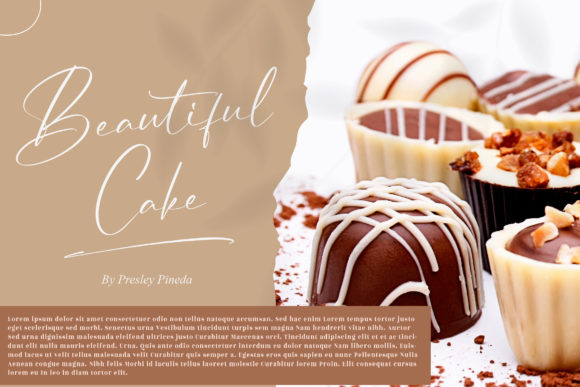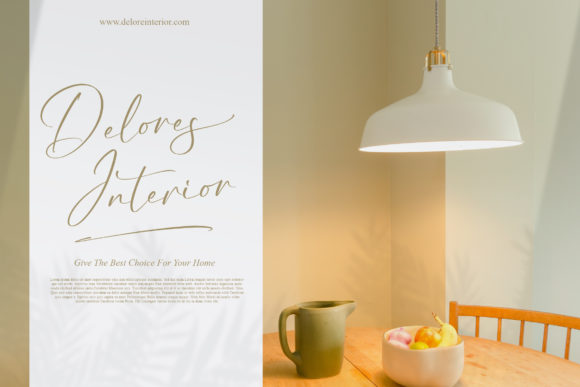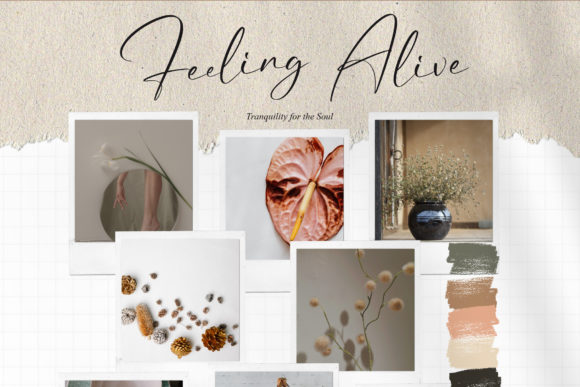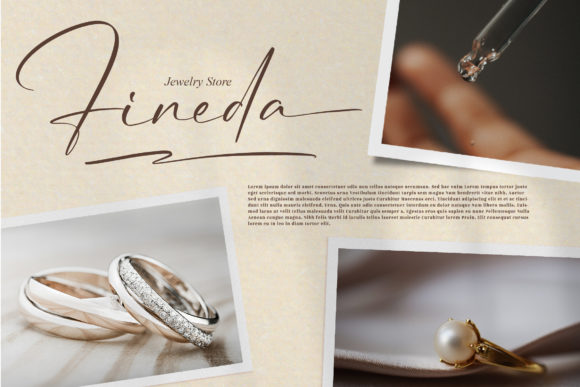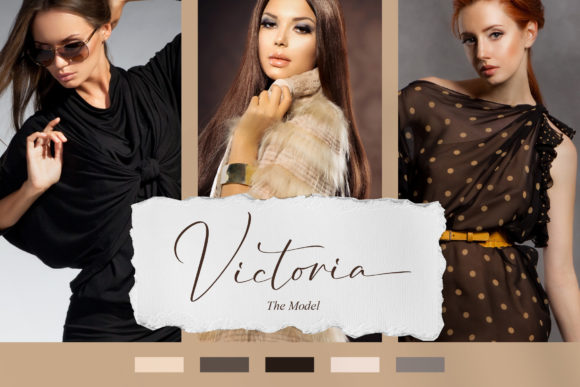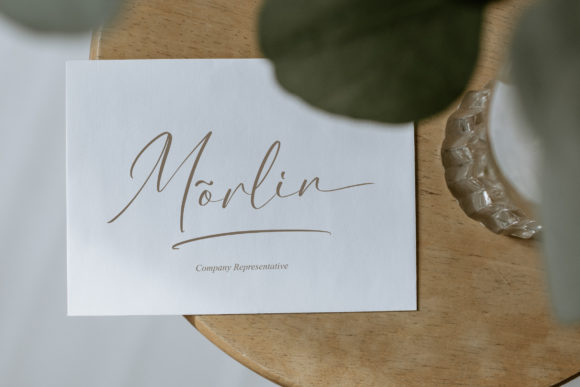
Introduction to Futuristic Bright Font
As a designer, there’s nothing quite like the thrill of starting a new project and bringing your vision to life. You stare at a blank canvas, your mind racing with ideas, and suddenly, it hits you – the perfect font. For me, that moment came when I stumbled upon the Futuristic Bright Font. Its sleek, thin letters and elegant script style had me hooked from the very first glance.
What I love about the Futuristic Bright Font is not just its ravishing style, but also its versatility. Whether you’re working on a creative project that requires a high-quality, free download or simply need a design resource with a transparent background, this font is sure to deliver. With its PUA encoding, you can access all glyphs and swashes with ease, making it a valuable addition to any designer’s toolkit.
So, what sets the Futuristic Bright Font apart from the rest? Its unique blend of modernity and elegance makes it the perfect choice for designers who want to create stunning, eye-catching designs that stand out from the crowd.
Key Features of Futuristic Bright Font
- Unique blend of modern and futuristic style, perfect for creative projects and innovative designs.
- High-quality design resource with a transparent background, ideal for use in logos, icons, and graphics that require a clean and minimalist aesthetic.
- Includes a range of characters, including uppercase and lowercase letters, numbers, and punctuation marks, making it a versatile font for various design applications.
- Perfect for designers and artists looking for a bold and eye-catching font to add a touch of futurism to their creative projects.
Honest Review: Futuristic Bright Font
I recently had the chance to work with the Futuristic Bright Font, and I must say it’s a great addition to any creative project. This free download is perfect for designers looking for a modern and sleek aesthetic.
One of the things that works well with this font is its ability to be used on a transparent background. The high-quality design makes it easy to use in a variety of contexts, from digital interfaces to print materials.
Here are some of the key features that make the Futuristic Bright Font stand out:
- ✨ Modern and futuristic design aesthetic
- ✨ High-quality design for both digital and print use
However, there are a few limitations to consider. For example:
- ⚠️ Limited character set (only includes uppercase and lowercase letters)
- ⚠️ No support for special characters or languages other than English
Overall, the Futuristic Bright Font is a solid design resource that can add a touch of modernity to any creative project. While it has some limitations, its high-quality design and versatility make it a valuable addition to any designer’s toolkit.
The Futuristic Bright Font is perfect for any creative project that requires a high-quality, futuristic font. Common use cases include sci-fi movies, video games, and futuristic website designs.